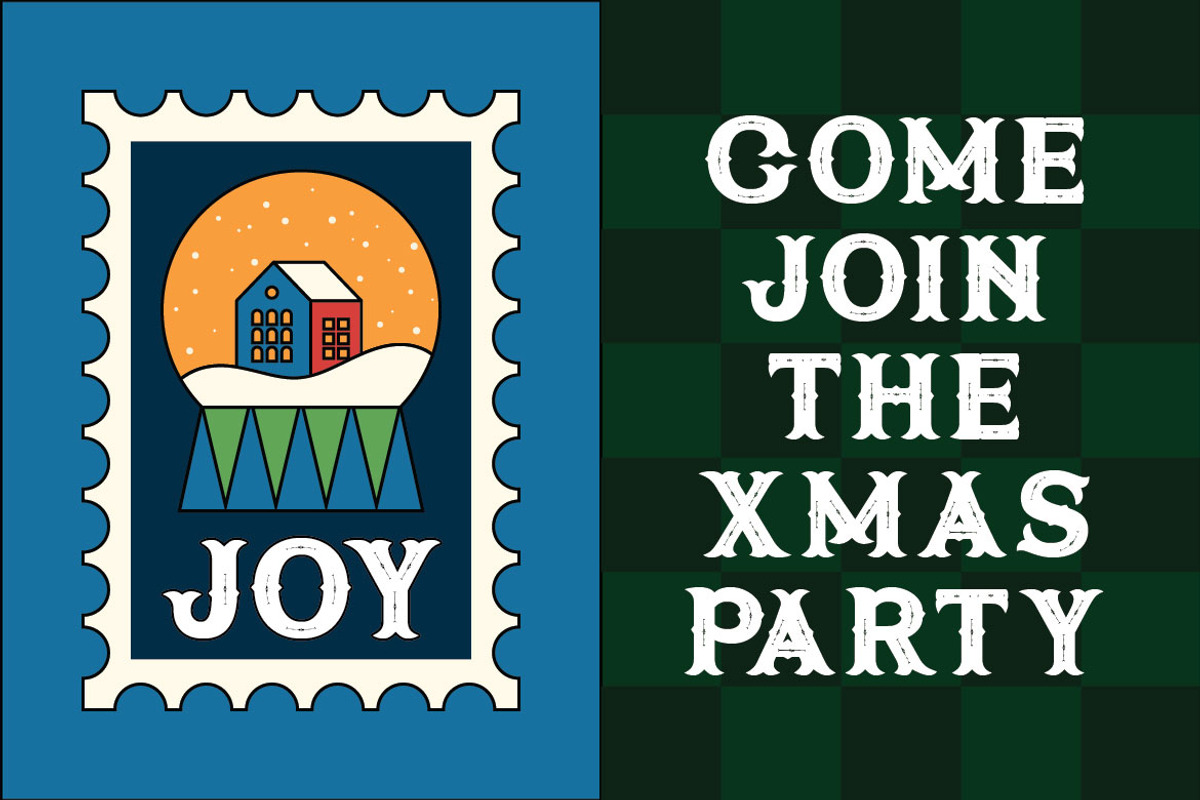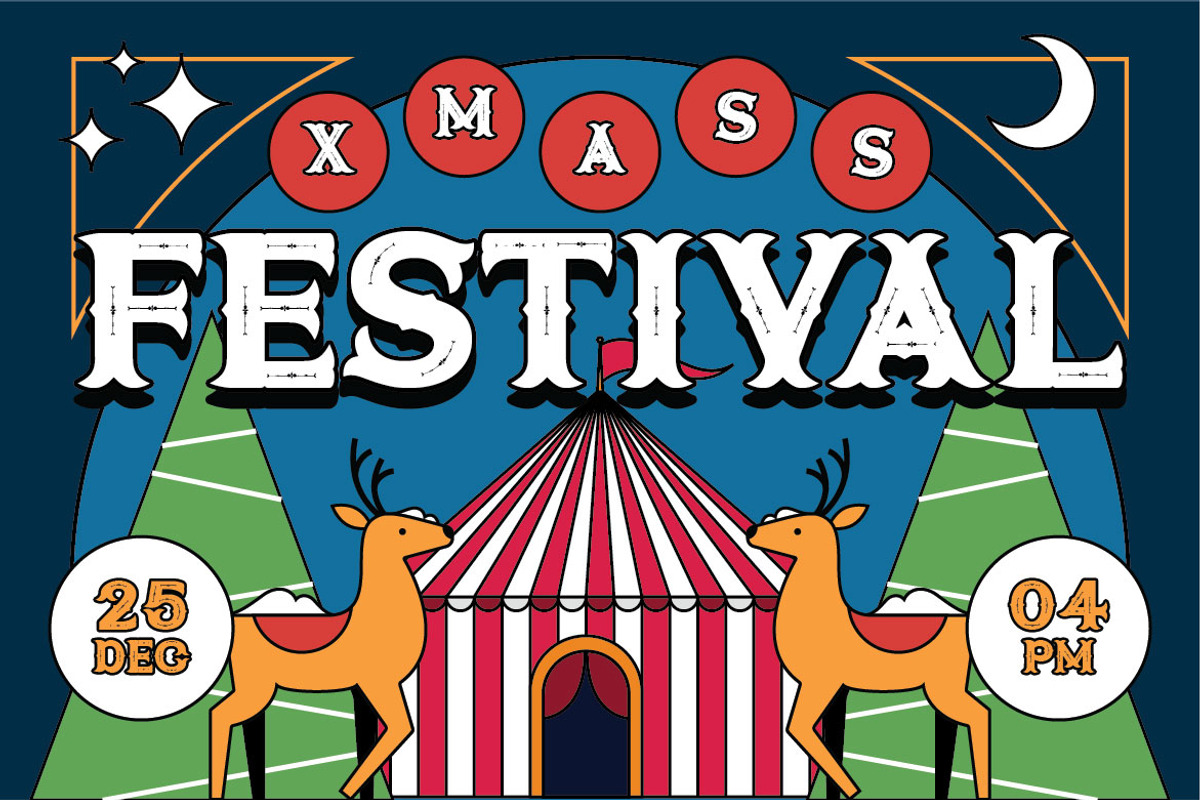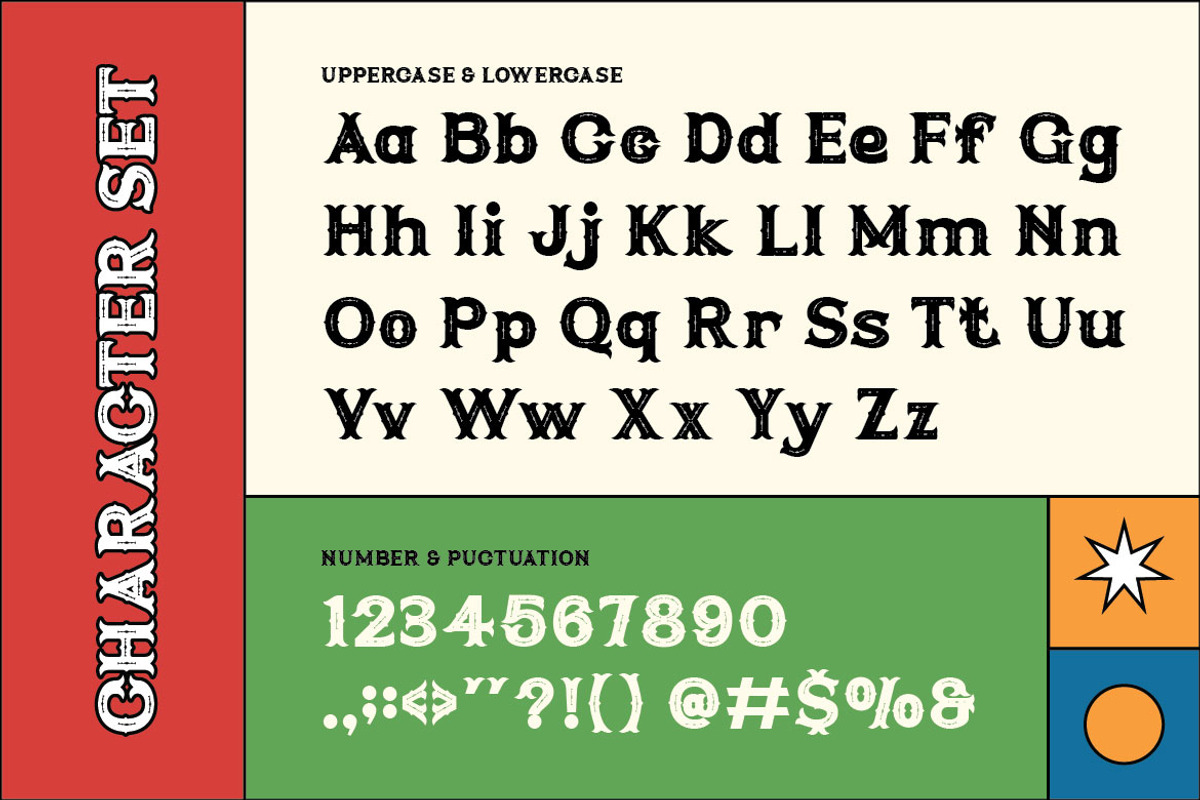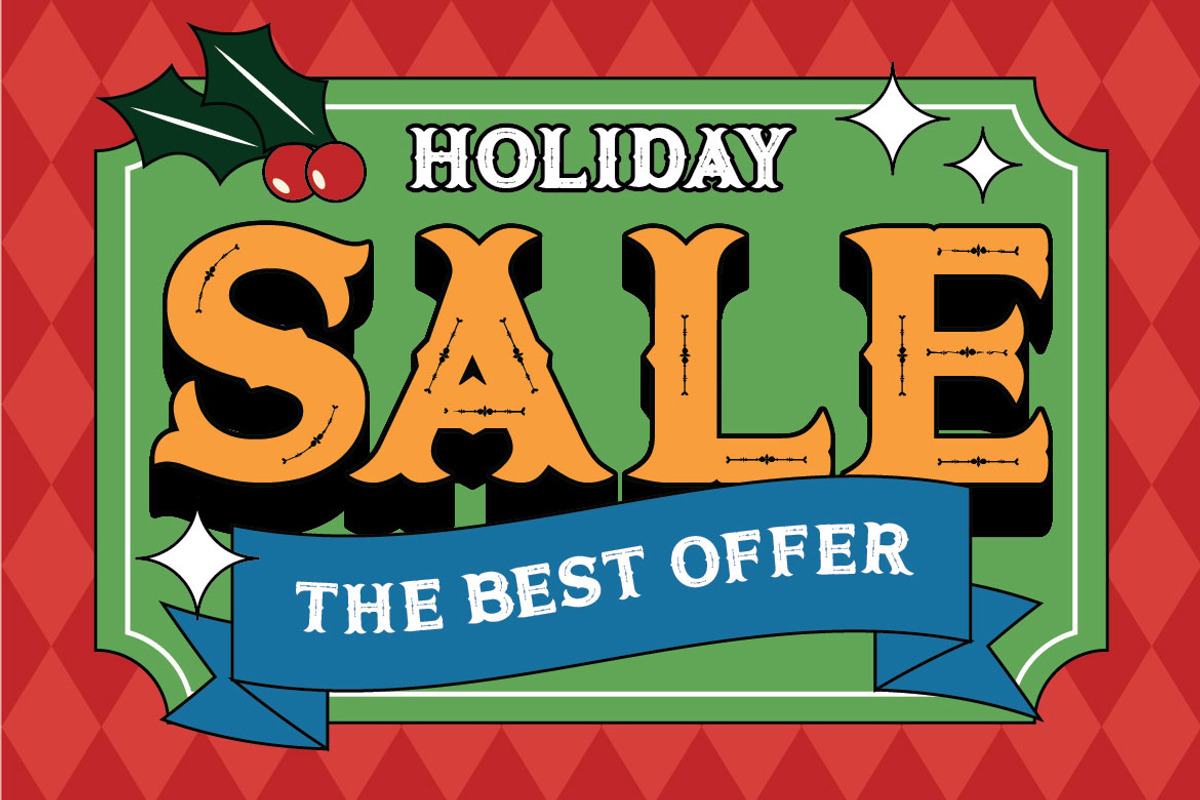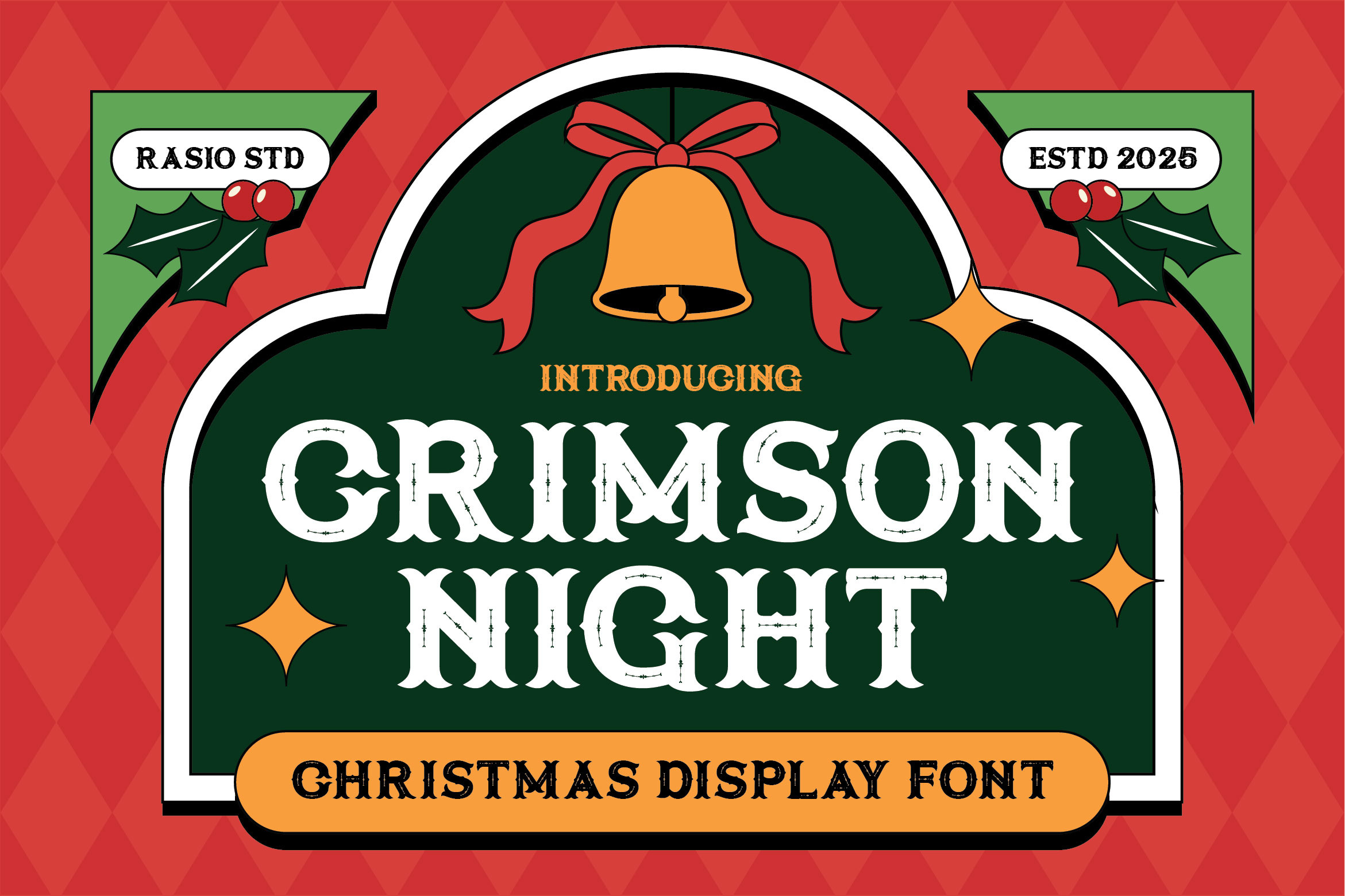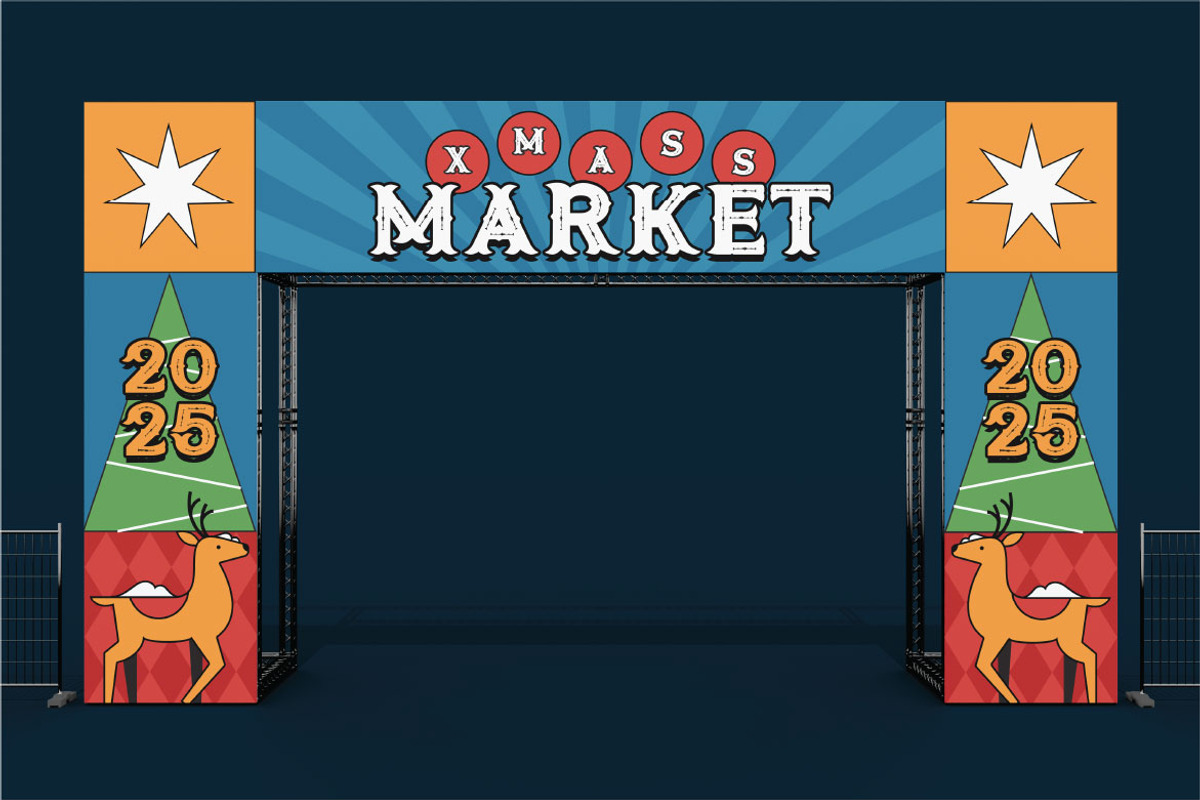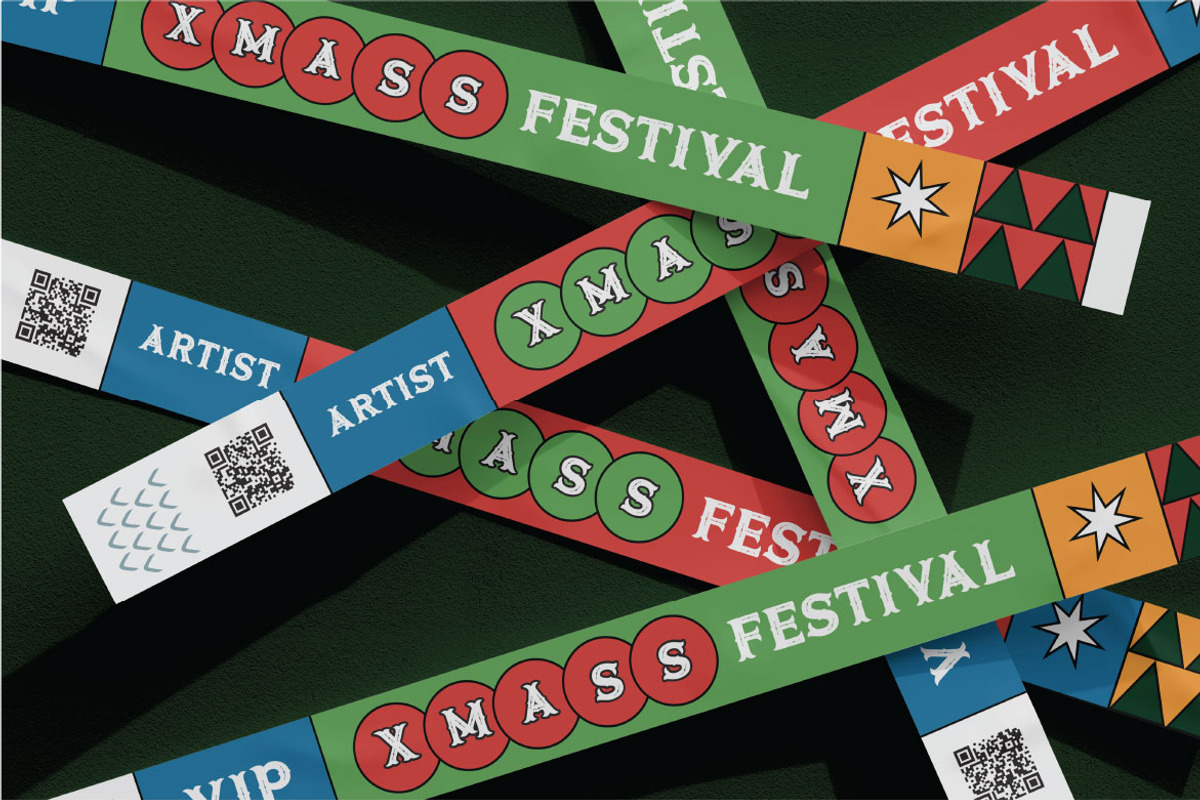
Crimson Night Christmas Font
Crimson Night is a bold vintage Christmas display font inspired by retro holiday signage and classic seasonal posters. It features chunky serif forms, distressed ink details, and strong decorative shapes that create a warm, nostalgic festive feel. The typeface includes uppercase, lowercase, numbers, and punctuation with multilingual support, designed for high-impact headlines and standout typography.
Crimson Night is perfect for Christmas sale posters, holiday promotions, seasonal packaging, greeting cards, event banners, café menus, gift labels, social media ads, and any festive branding that needs bold, cheerful, and nostalgic typography. Ideal for holiday campaigns, Christmas markets, seasonal events, food and beverage promotions, retail sales posters, greeting cards, gift packaging, café menus.
- Bold vintage serif structure with chunky, high-impact letterforms
- Distressed ink details for a rustic, handcrafted holiday feel
- Strong slab-like serifs and decorative cuts for nostalgic signage character
- Thick strokes and compact shapes for eye-catching readability at large sizes
- Optimized spacing for posters, banners, and festive headline compositions
- Christmas sale posters, holiday promotions, and seasonal campaigns
- Festive packaging, gift labels, and product branding
- Event banners, market signage, and storefront displays
- Greeting cards, invitations, and winter celebration graphics
- Social media ads and marketing materials with bold retro charm
Turn every design into a festive statement with Crimson Night’s retro Christmas character